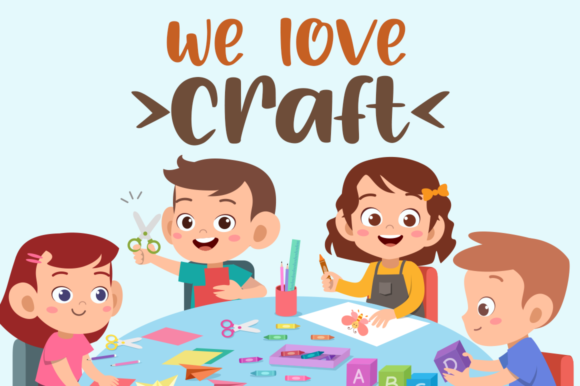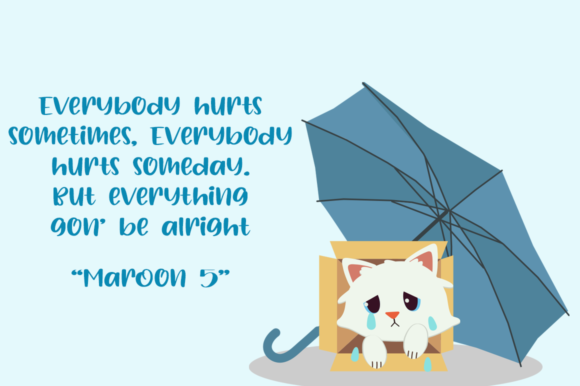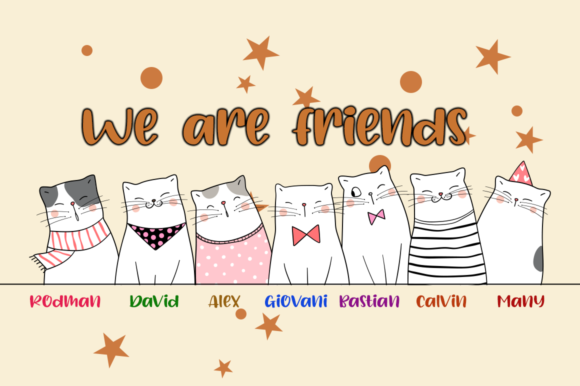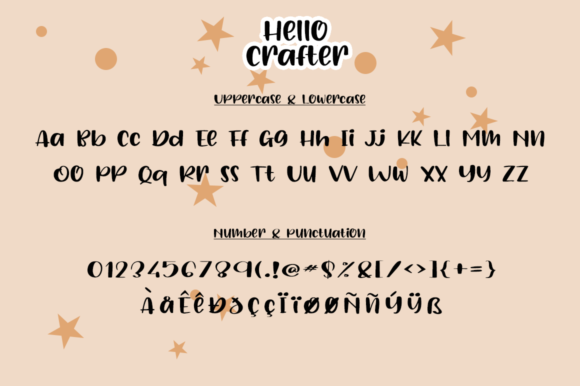
Introduction to Hello Crafter Font
Hello Crafter is a sweet and friendly handwritten font.
Key Features of Hello Crafter Font
Why Choose Hello Crafter Font?
Hello Crafter Font offers exceptional quality and versatility, making it a valuable addition to your design toolkit. Whether you’re creating for personal projects or commercial use, Hello Crafter Font delivers professional results.